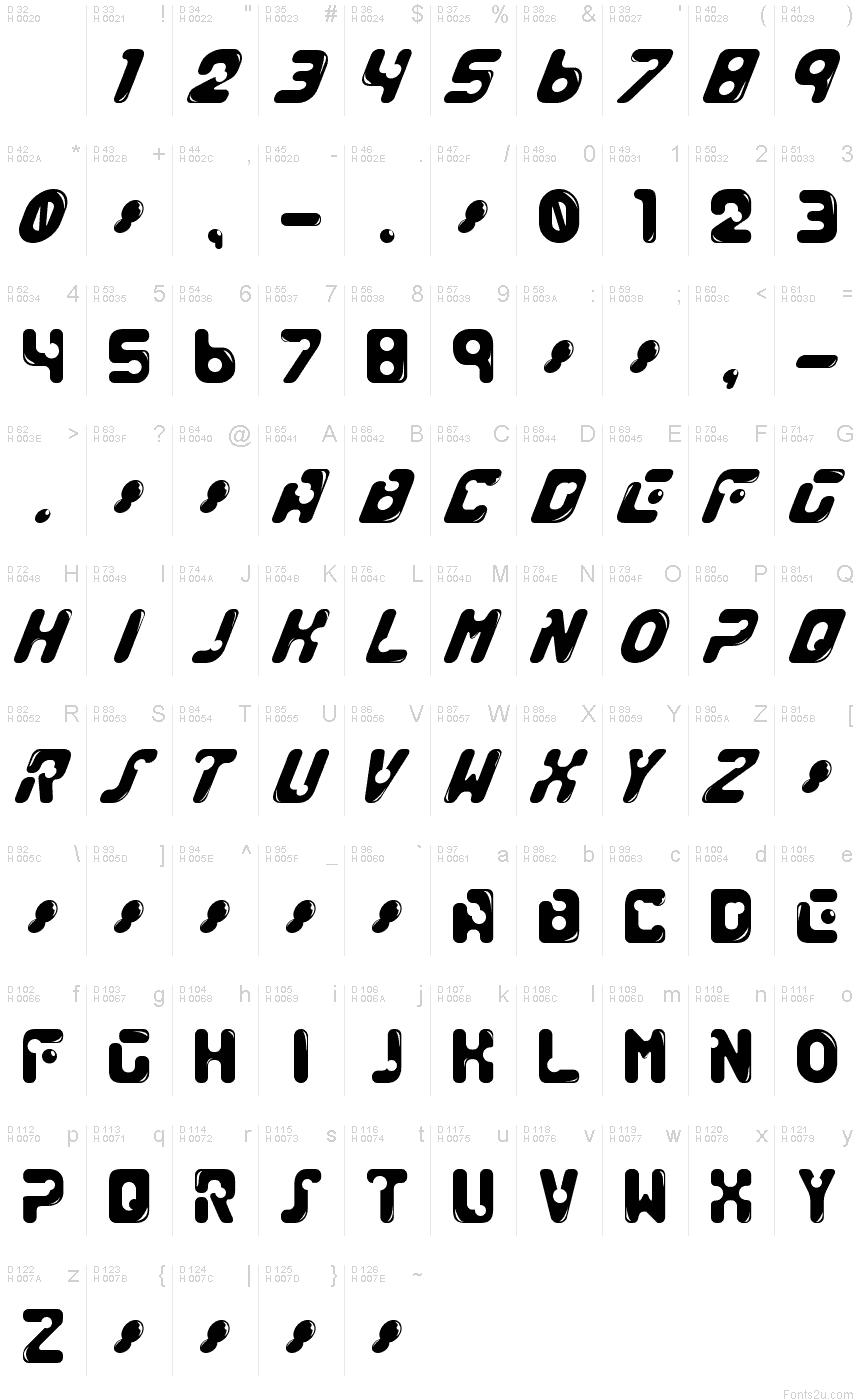
GENOCIDE_RMX
GENOCIDE_RMX font by Lovedesign Co. and Genocide Graphixxx is a free futuristic display typeface. Its chunky, forward-slanting letters feel like glossy plastic caught in motion, with sliced highlights and inky shadows that create a fast, kinetic rhythm. Rounded corners and thick strokes keep it bold and friendly, while the chopped, almost liquid shapes give every word a high-energy, underground-club vibe.
Using GENOCIDE_RMX, headlines snap off the page for gaming covers, sci‑fi posters, rave flyers, album artwork, and edgy streetwear branding. This free font shines when it’s big and loud, so let it command the top line and pair it with a clean, neutral sans serif for supporting text.